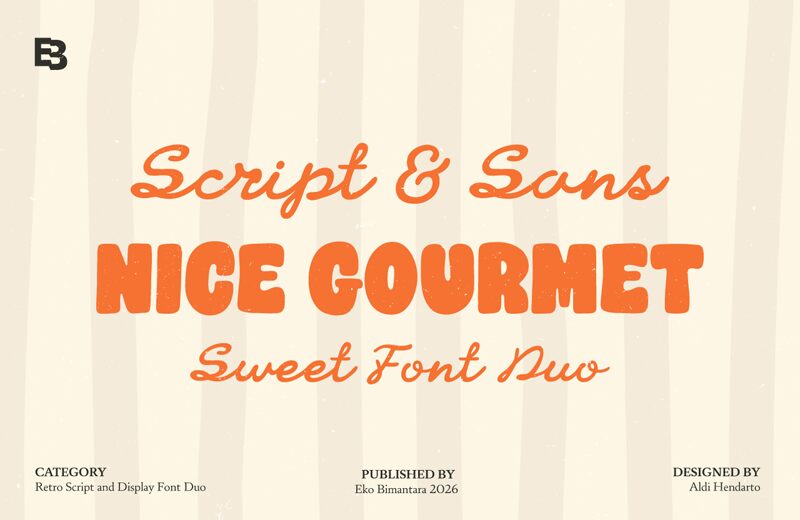
Nice Gourmet Sans font designed by Eko Bimantara is a groovy font with a retro flair. The font family is vibrant, expressive, and effortlessly enjoyable to experiment with. Inspired by the typography of the late 1960s, it has a casual and inviting rationality to it. The nostalgia from the era will bring a lively energy to your work. Lift your readers and viewers into the 21st century while reminding them of pop culture from past ages.
A dynamic display font with versatile uses, Nice Gourmet Sans can be used in branding, advertising, packaging, and print. Software, apps, and website development that needs a subtle vintage feel can pair this typeface with other contemporary san serifs or script typefaces. Used as a title or single word type, your readers will appreciate the love and soul expressed within the letterforms.